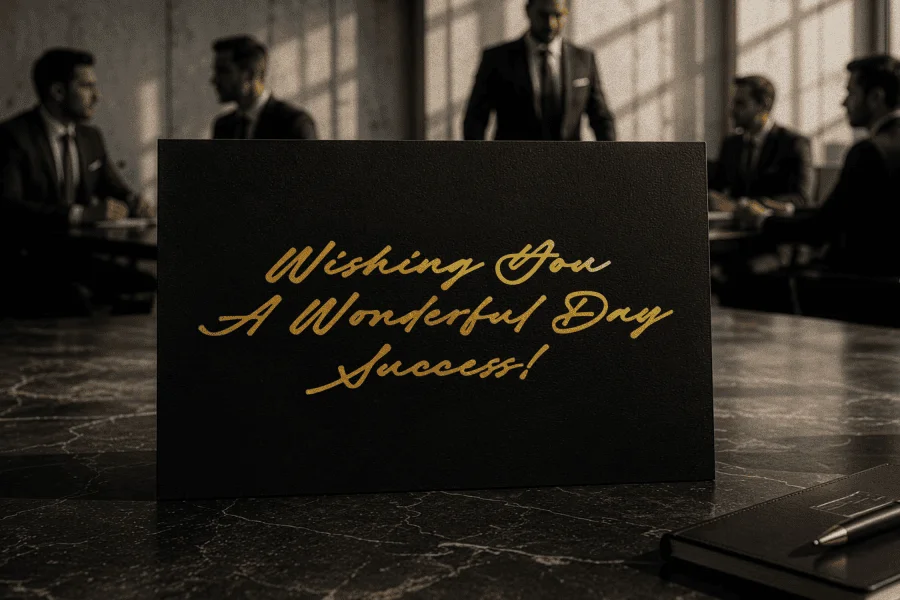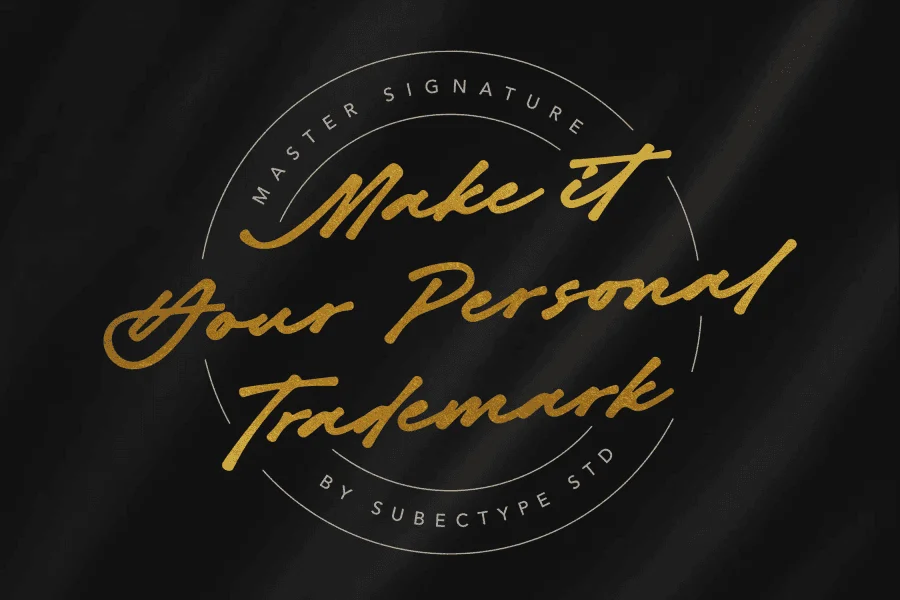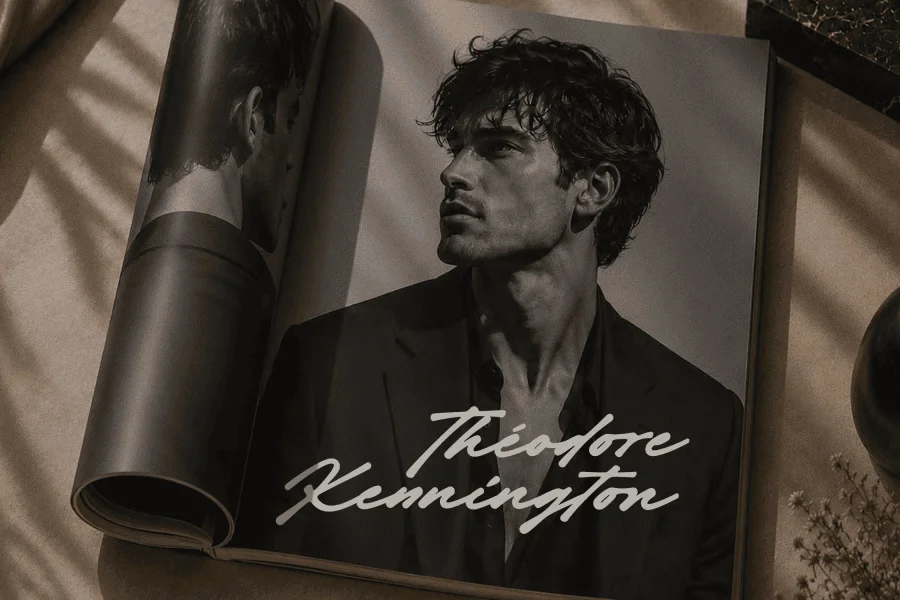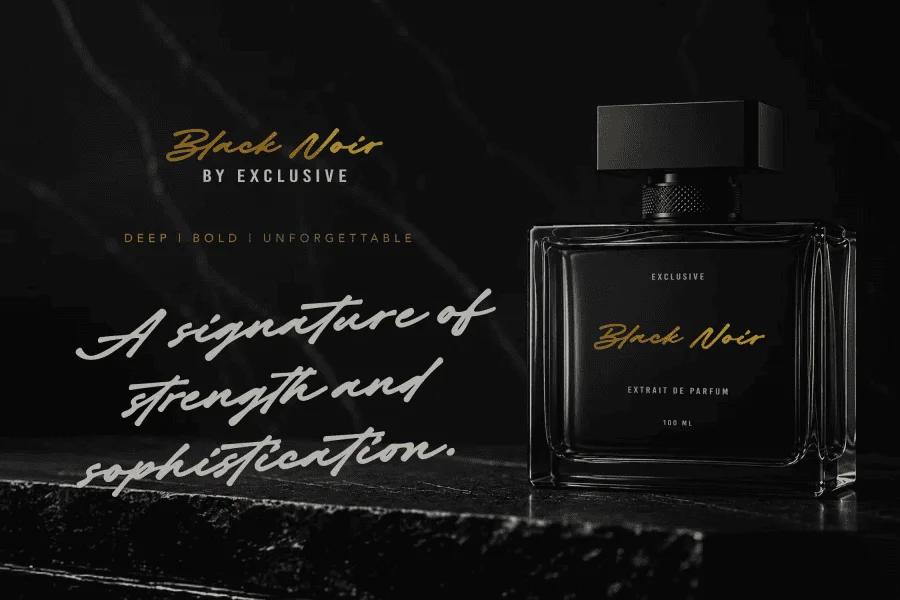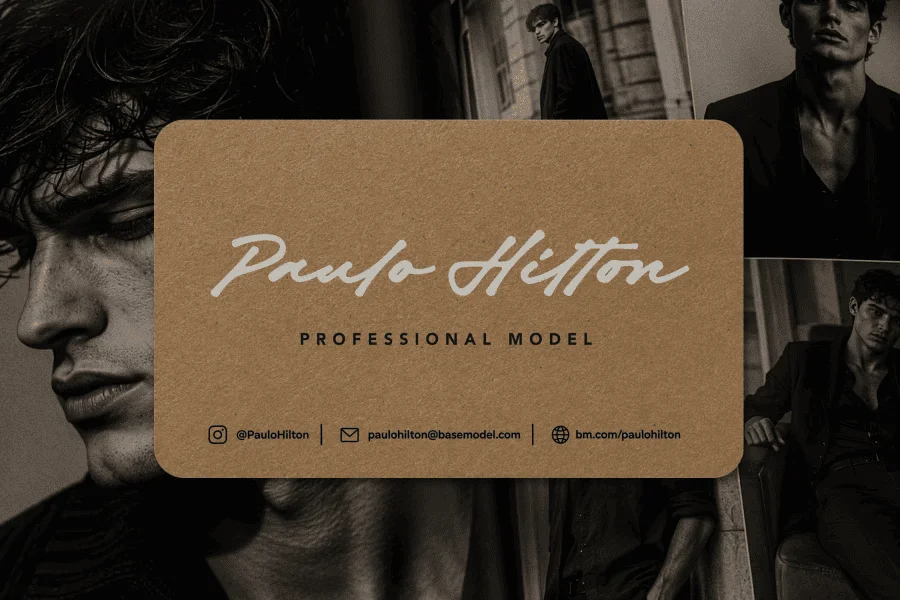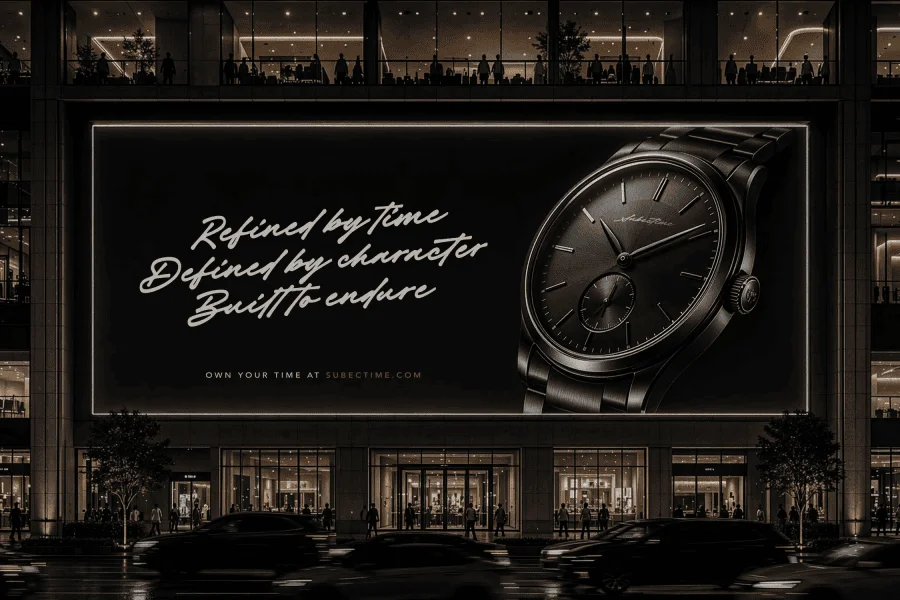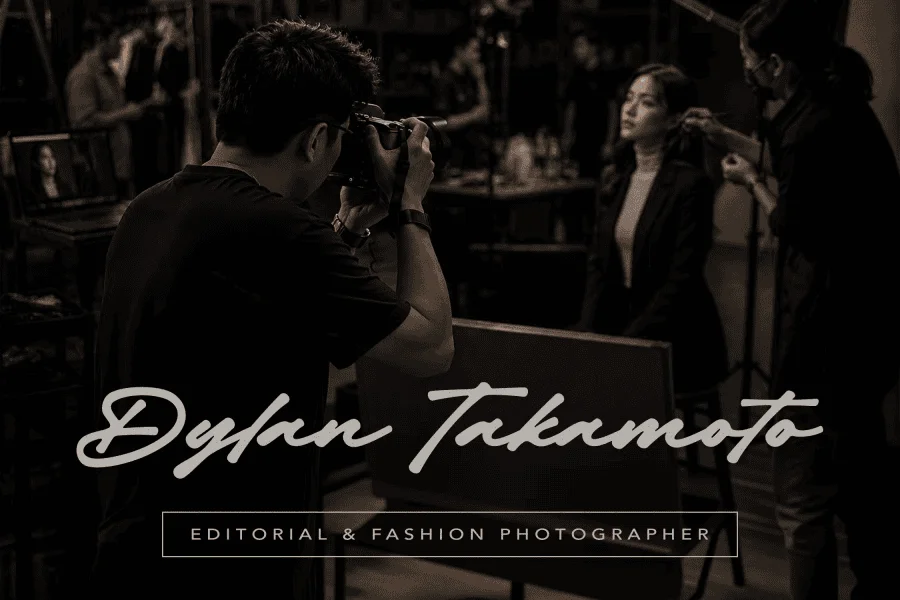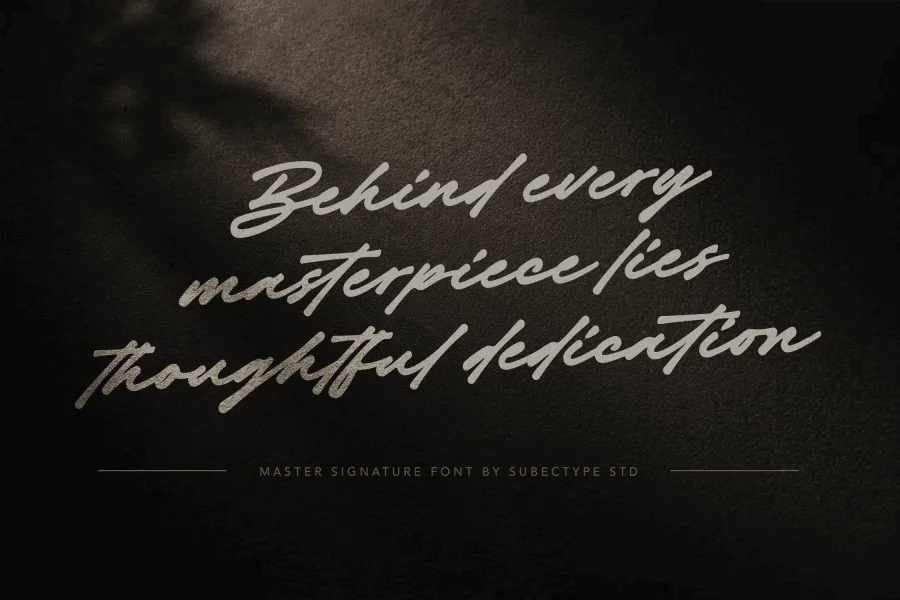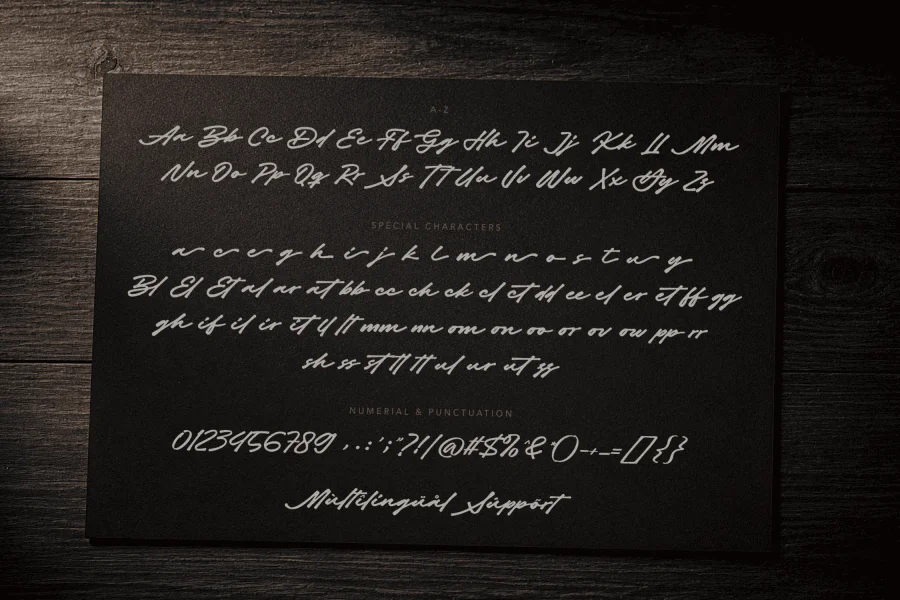
Master Signature is an expressive, gestural script typeface designed to mimic the fluid, rapid strokes of a personal signature. It features a low-contrast construction with a natural, hand-drawn flow, balancing sharp angles and sweeping curves. The letters are connected with dynamic, low-slung ligatures that give the text a continuous, rhythmic movement. Its posture is distinctly slanted, lending an energetic yet sophisticated speed to each word, while the terminals taper off into elegant, organic points.
Master Signature is exceptionally suited for high-end branding, luxury packaging, and editorial design. Its personal, bespoke aesthetic makes it an ideal choice for fashion mastheads, premium watch advertisements, and signature-style logos for creative professionals. Master Signature excels in display settings where a sense of prestige, individuality, and refined craftsmanship is required.